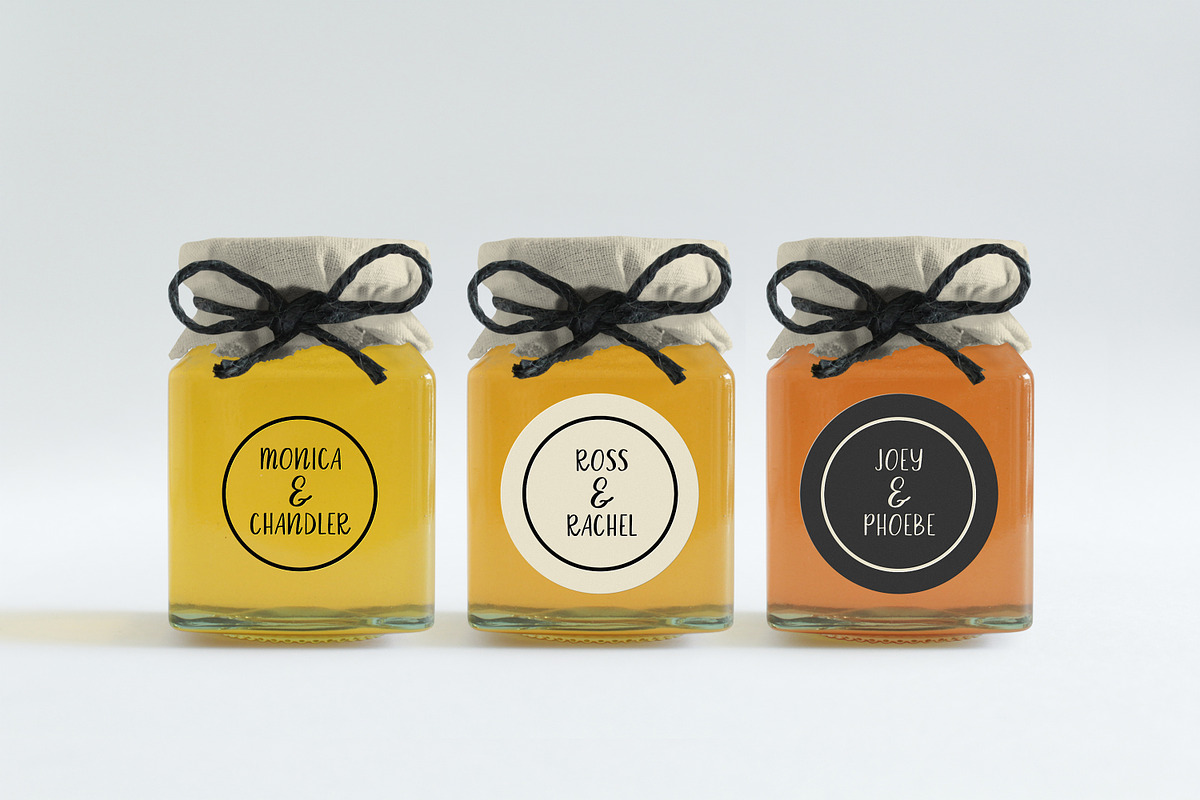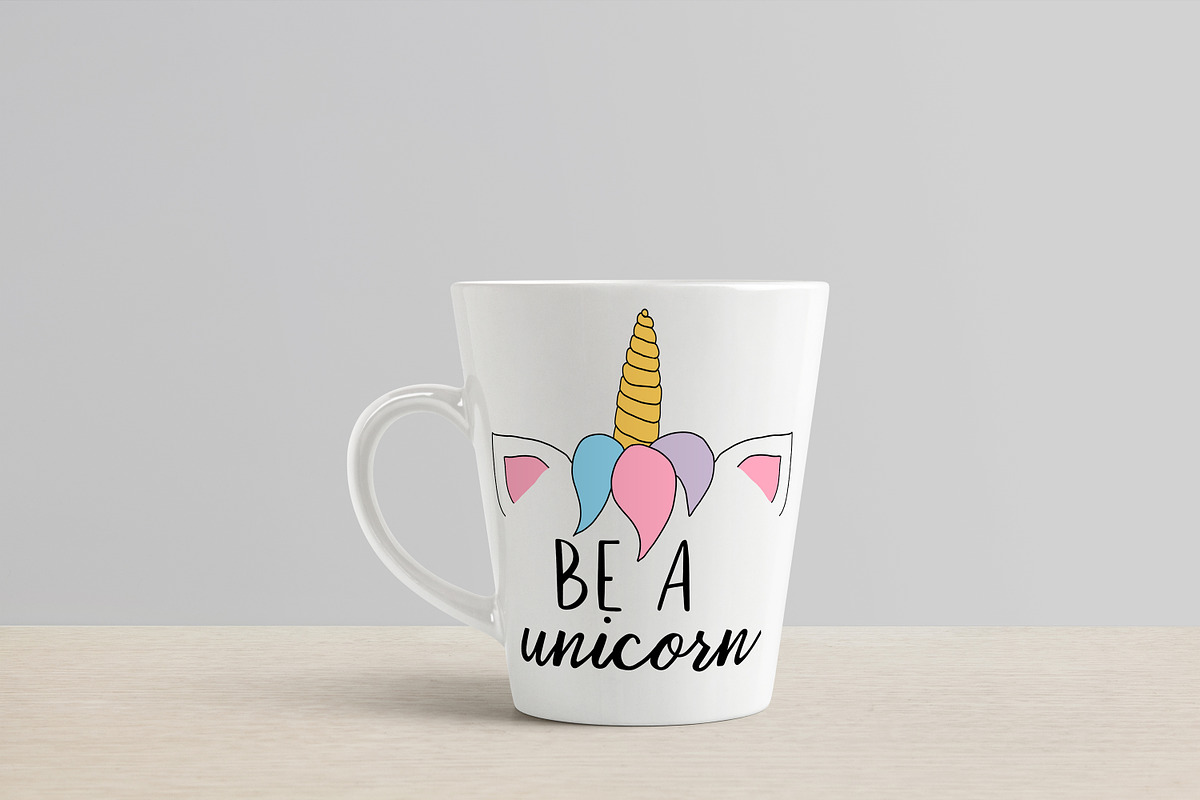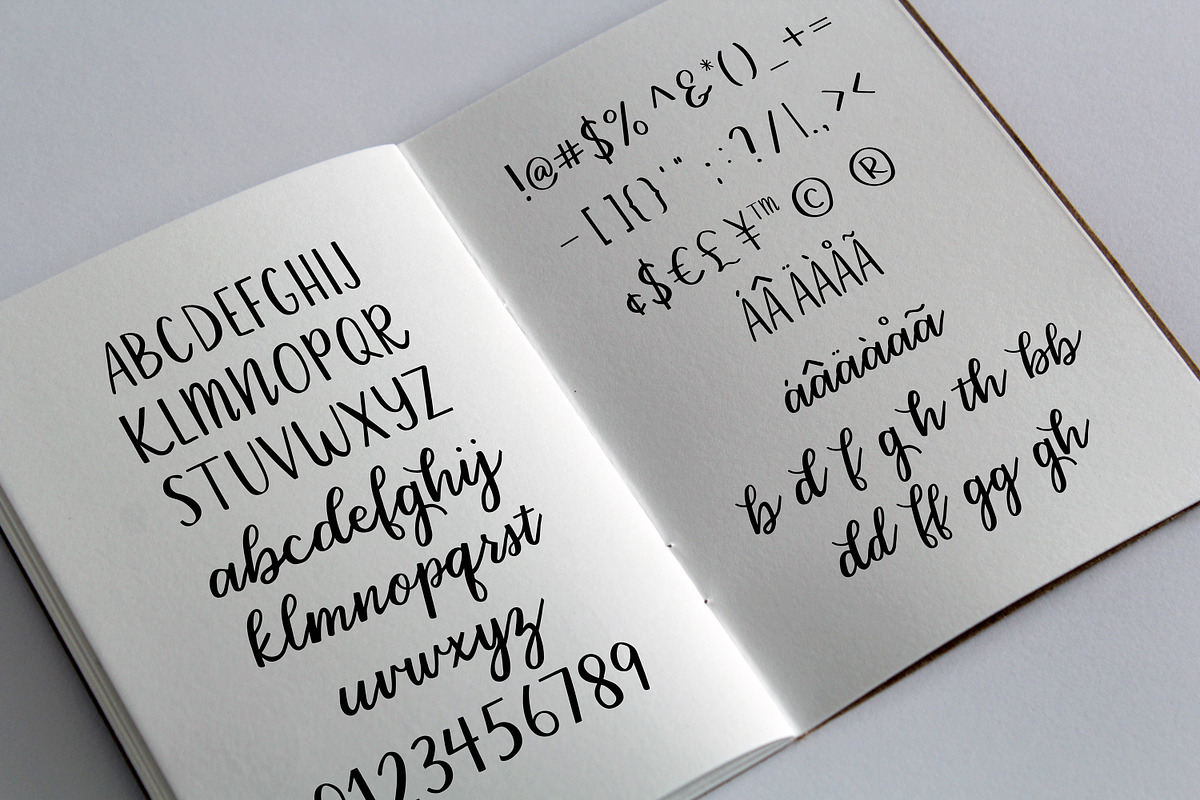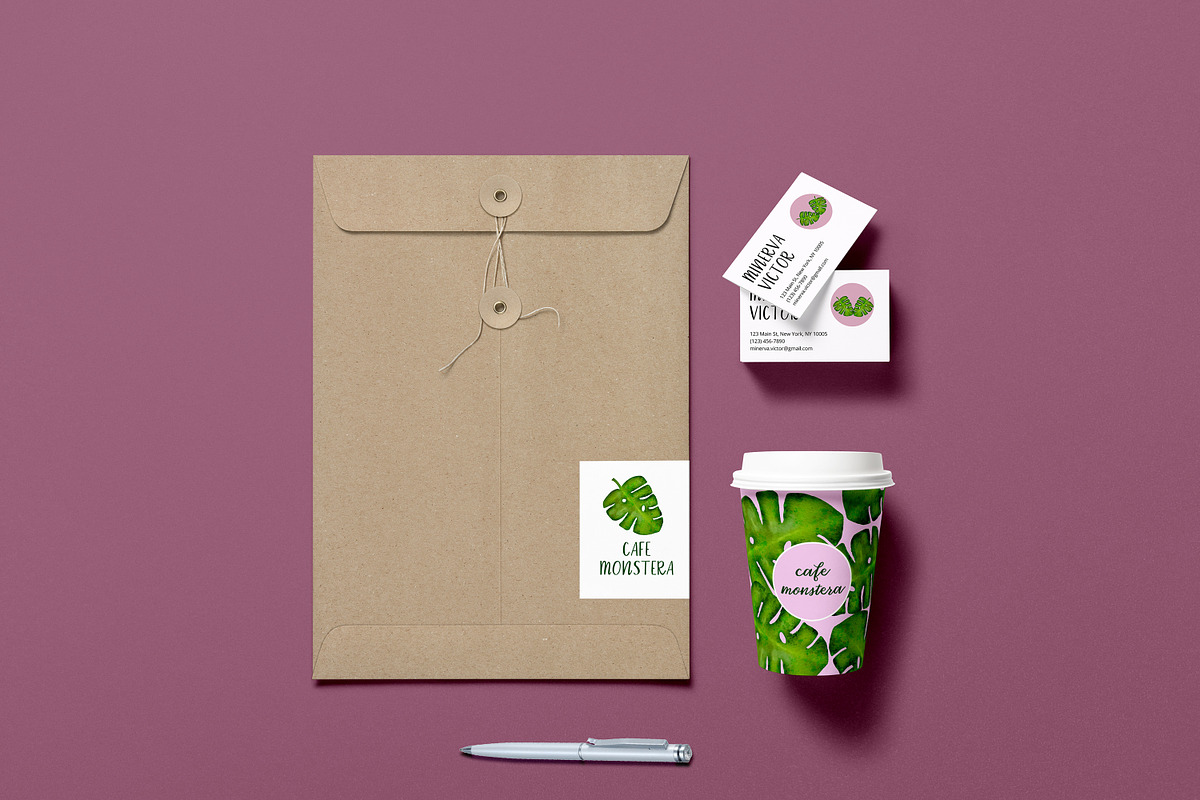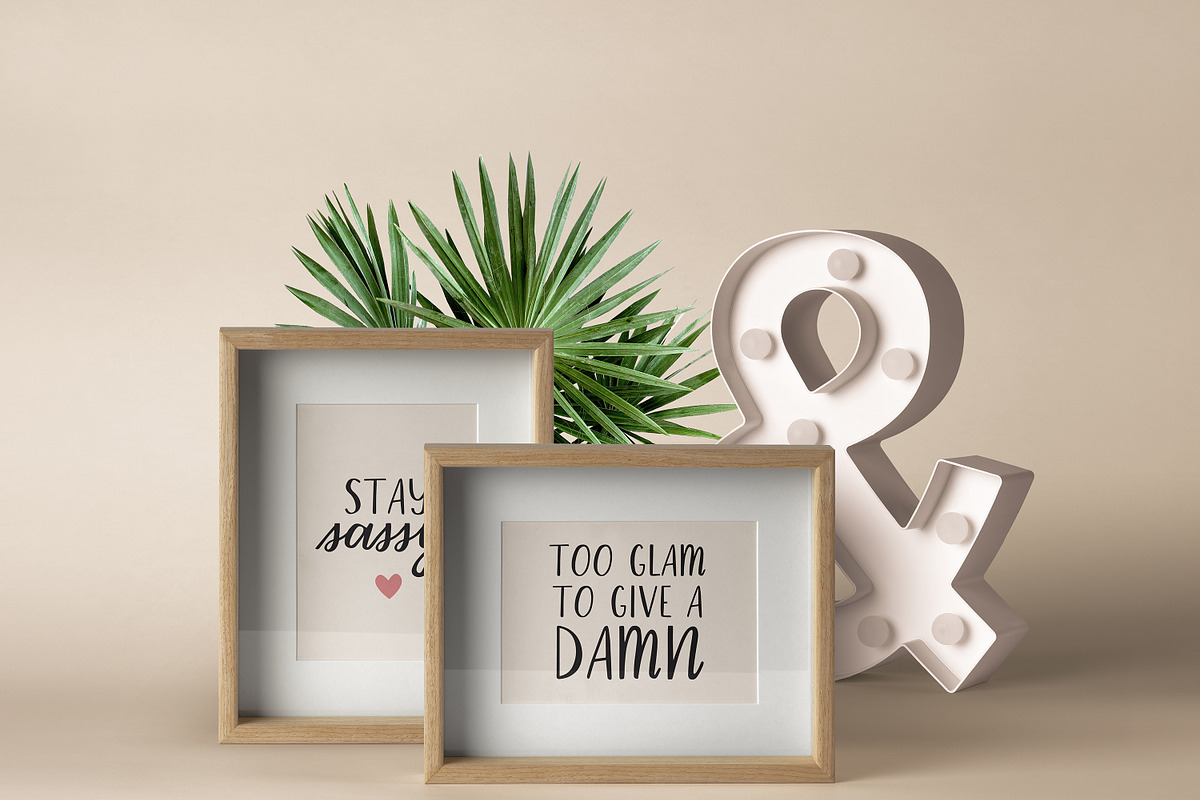
Happy Mornings Font
Happy Mornings font is a handwritten font duo that would be great for wedding favors, labels, mugs, print, or whatever you need. There are multilingual support, some alternates, and other fun features.